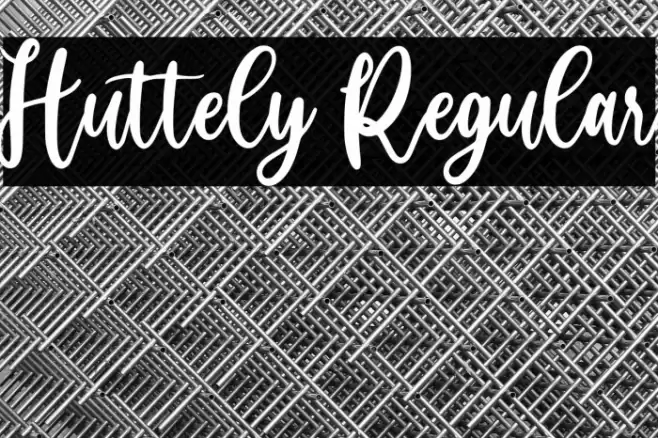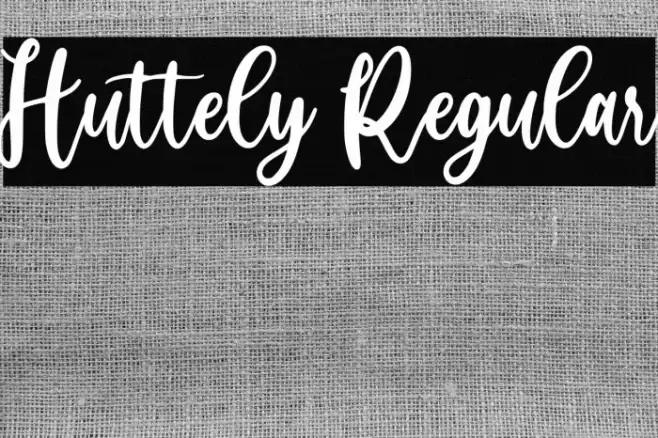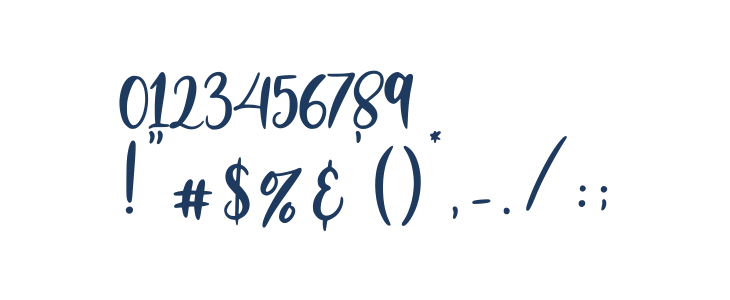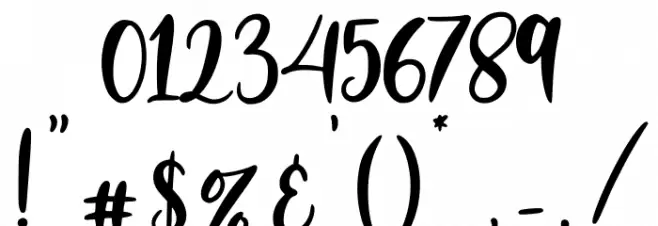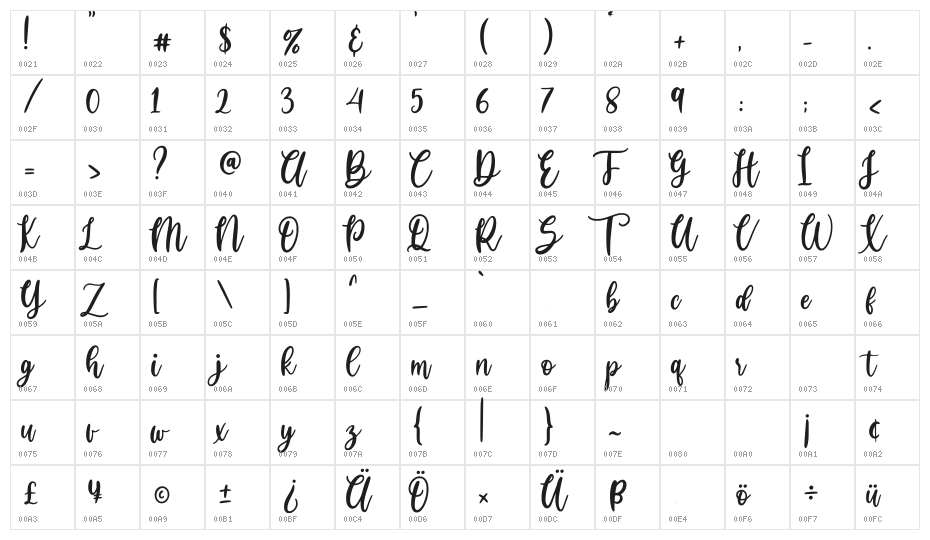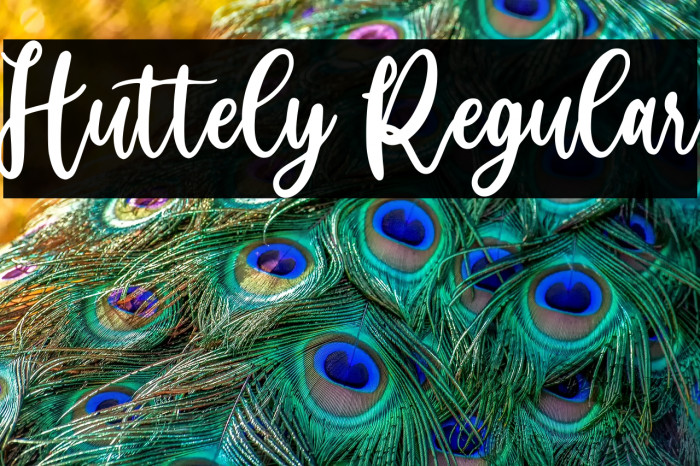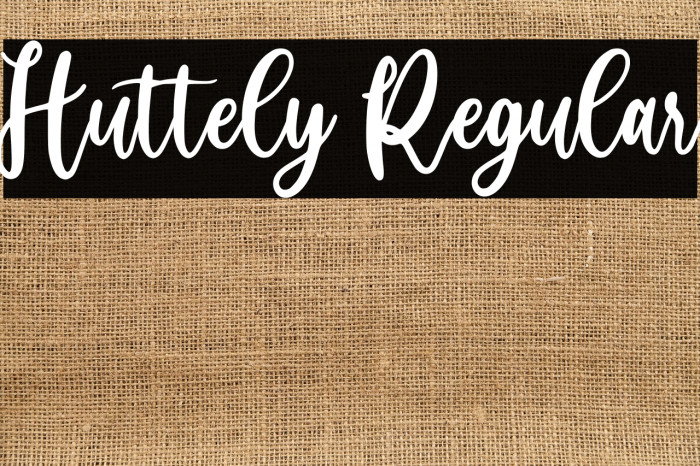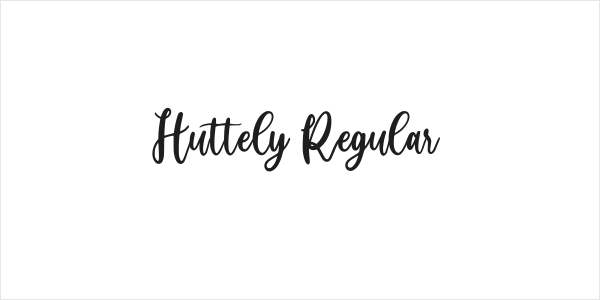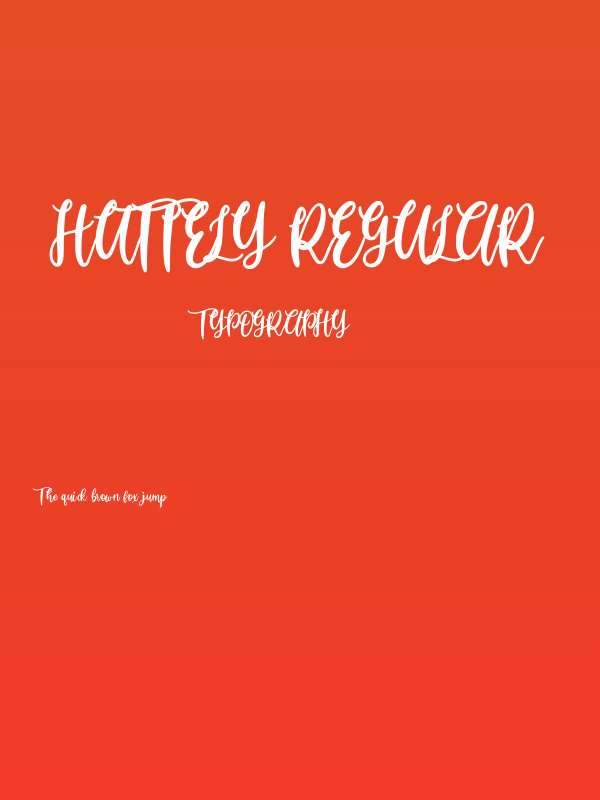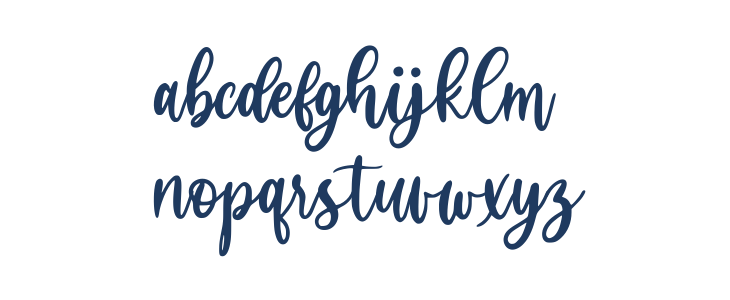
Huttely Regular Font
Huttely Regular Description
This font features a lively and energetic script style with a handwritten appearance. The letters are connected, giving it a fluid and continuous look. The uppercase letters are bold and expressive, while the lowercase letters maintain a consistent flow. The numerals and special characters complement the overall design with their playful curves and loops. This font is perfect for adding a personal touch to any project, making it ideal for creative and artistic designs.
A lively, handwritten script font with bold, connected letters from Regular fonts.
- Proposed Projects: Ideal for wedding invitations, greeting cards, branding, and social media graphics.
- Use Case: Logos, Headlines, Invitations